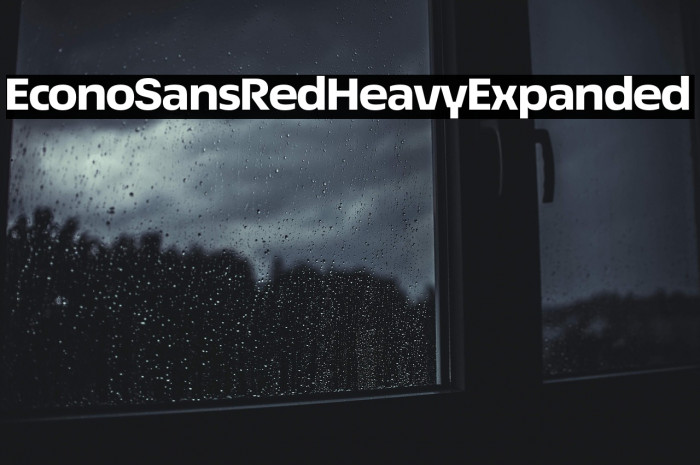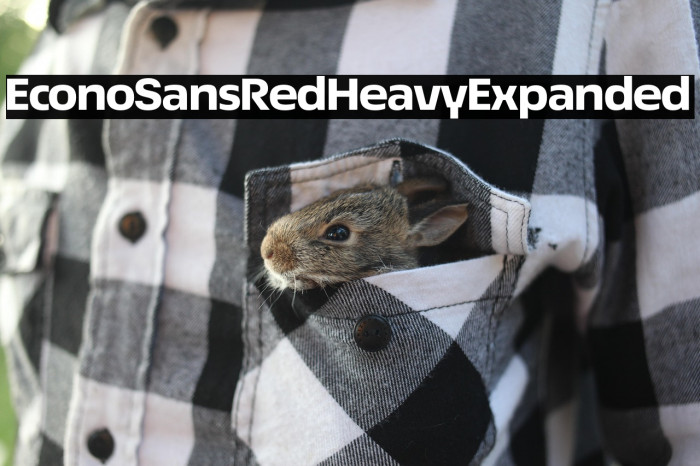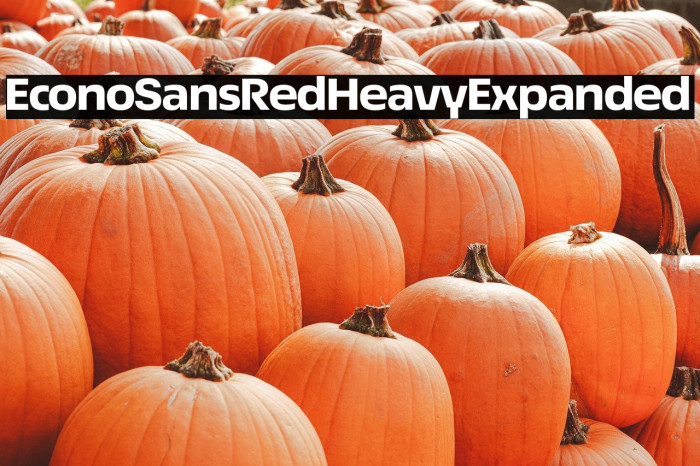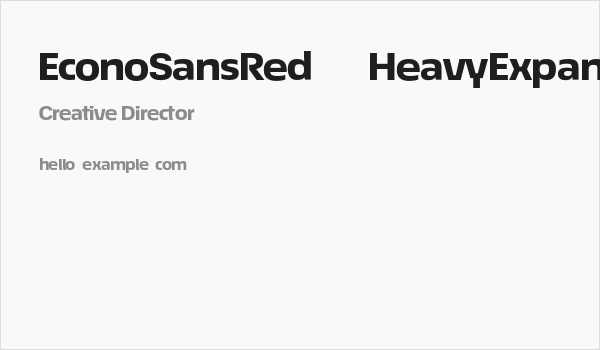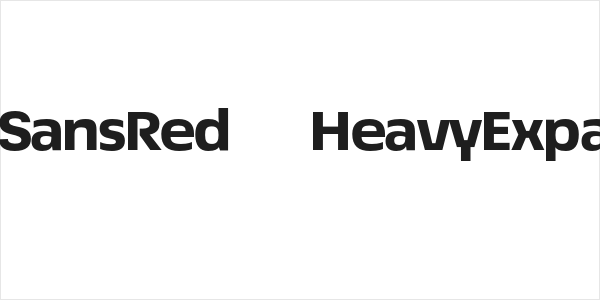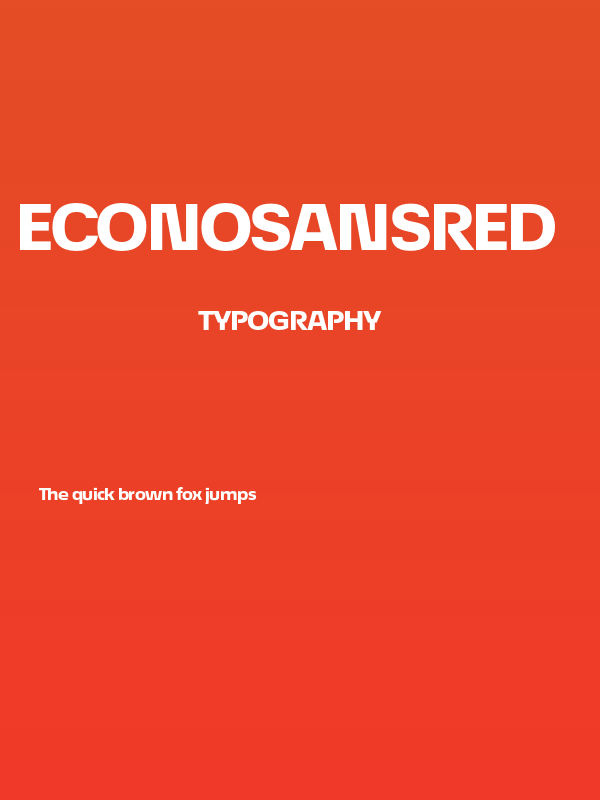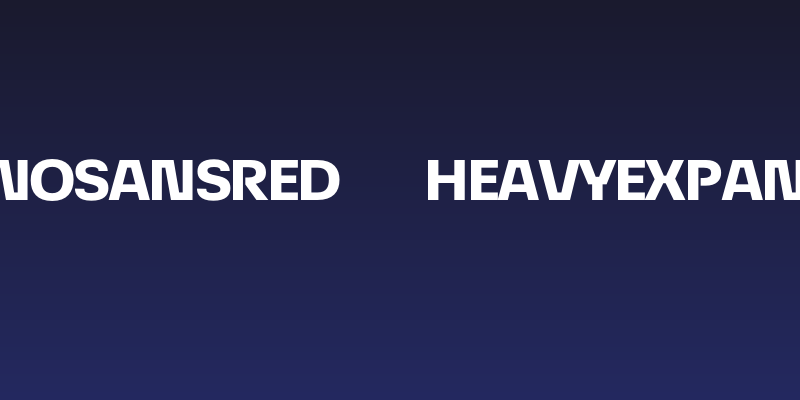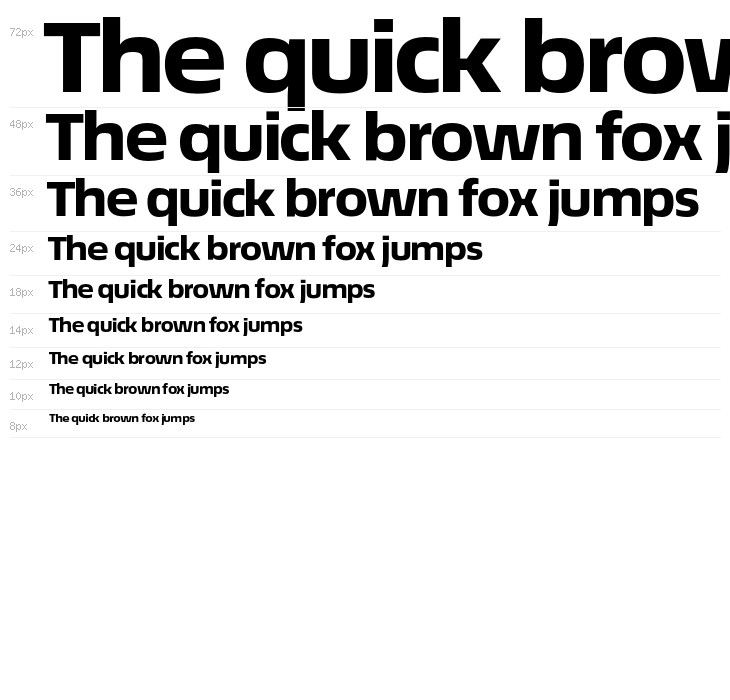
EconoSansRed-83HeavyExpanded Font
EconoSansRed-83HeavyExpanded Description
This font features a bold and heavy appearance with expanded width, giving it a strong and impactful presence. The characters are sans-serif, characterized by clean lines and a modern aesthetic. The uppercase letters are uniform in height, while the lowercase letters maintain a consistent baseline. The font exhibits a geometric influence, with rounded edges on certain letters like 'O' and 'Q', providing a balanced and approachable feel. The spacing between characters is normal, ensuring readability while maintaining a compact look. The overall style is contemporary, making it suitable for various modern design applications.
| Proposed Projects | Ideal for branding, advertising, headlines, and digital media where a strong visual impact is needed. |